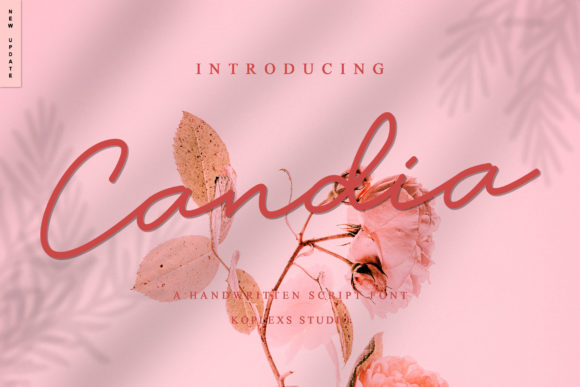
The Candia Font: A Designer’s New Best Friend
I’ll never forget the time I was working on a project for a client who wanted a font that was both down-to-earth and elegant. I scoured the internet, tried out countless fonts, but nothing seemed to fit the bill. That was until I stumbled upon the Candia font. Its casual charm and unique style immediately caught my attention, and I knew I had found the perfect fit. In this article, I’ll share my experience with the Candia font, its features, and how to make the most of it in your design projects.
• ✨ Unique Style: Candia brings a fresh perspective to classic typography, making it stand out in any design project.
• ✅ Readability: Its down-to-earth charm makes it incredibly readable, even on busy backgrounds.
• ✅ Versatility: Candia is versatile and works well as a standalone headline or in body text.
While Candia is an excellent font, there are a few things to keep in mind:
• ⚠️ Limited use of OpenType features: Candia doesn’t have an extensive range of OpenType features, which might limit its use in certain projects.
• 🤔 Glyphs and stylistic alternates: While Candia has some glyphs and stylistic alternates, they might not be as extensive as some designers would like.
The Story Behind Candia
Candia was designed with the goal of creating a font that was both unique and versatile. Its creator drew inspiration from classic typography, aiming to bring a fresh perspective to the world of design. The result is a font that is both down-to-earth and elegant, making it perfect for a wide range of design projects.
What is the Candia font? Candia is a unique and versatile font inspired by classic typography.
Is Candia suitable for body text? Yes, Candia is highly readable and works well in body text.
Does Candia have OpenType features? Candia has some OpenType features, but they might be limited compared to other fonts.